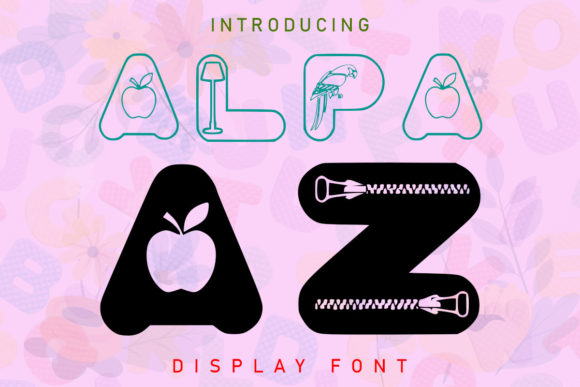
The Ultimate Font for Kids’ Designs: Alpa AZ
A Cool, Uniquely Shaped Font for Kids
Alpa AZ is a decorative font that’s perfect for kids’ crafts and school projects. Its unique shape and modern design make it stand out from the crowd. This font is sure to add a touch of fun and playfulness to any design. Whether you’re a designer, crafter, or creative hobbyist, Alpa AZ is a great addition to your font collection.
An Honest Review of Alpa AZ
- ✨ Unique and modern design that’s perfect for kids’ projects
- ✅ Easy to read and understand, even for young children
- 🌈 Fun and playful vibe that’s sure to engage kids
- 💻 Works well on both digital and print materials
While Alpa AZ is an amazing font, there are a few things to keep in mind:
- ⚠️ May not be suitable for formal or professional designs
- 🤔 Some characters may not work well in certain contexts, such as in tables or side-by-side text
- Stylistic alternates: Switch between different font styles to add variety to your design.
- Glyphs: Use special characters and symbols to add visual interest to your text.
The Backstory of Alpa AZ
The story behind Alpa AZ is one of creativity and inspiration. The font’s designer was inspired by the playful and imaginative world of children’s art. They wanted to create a font that would capture the essence of childhood and bring joy to kids and designers alike. And so, Alpa AZ was born!